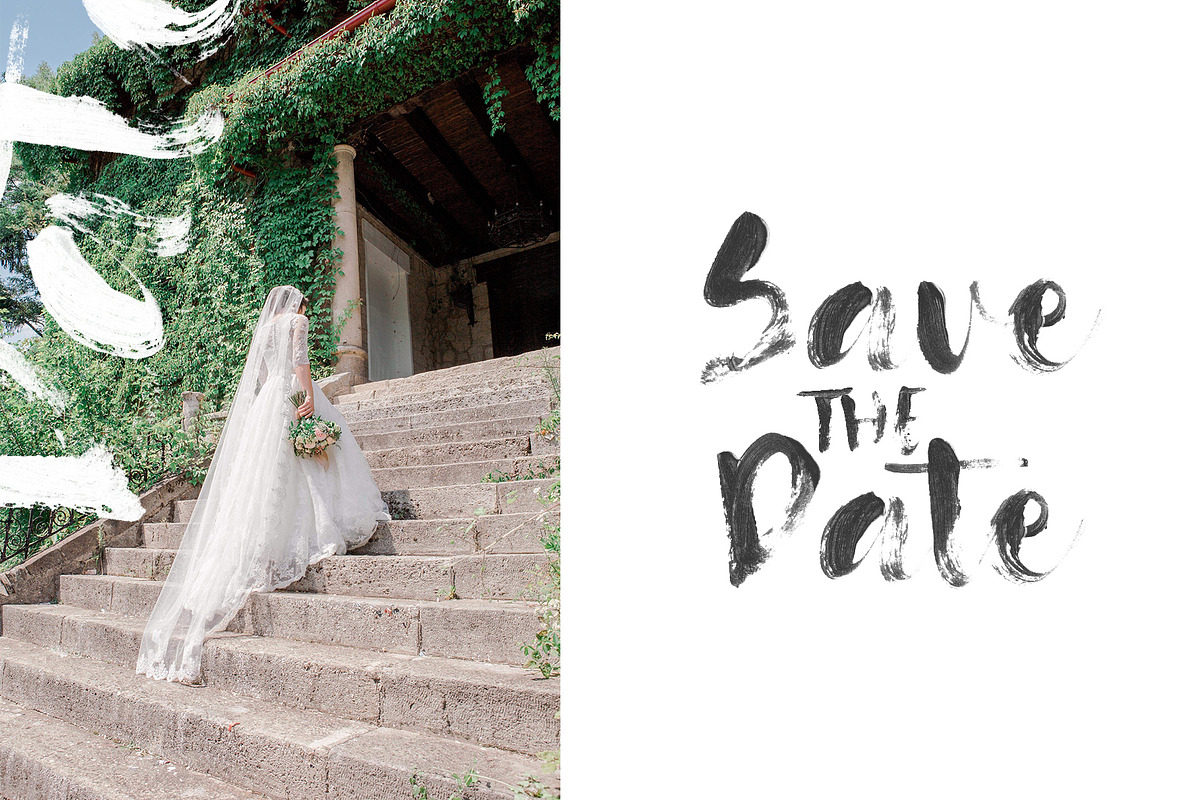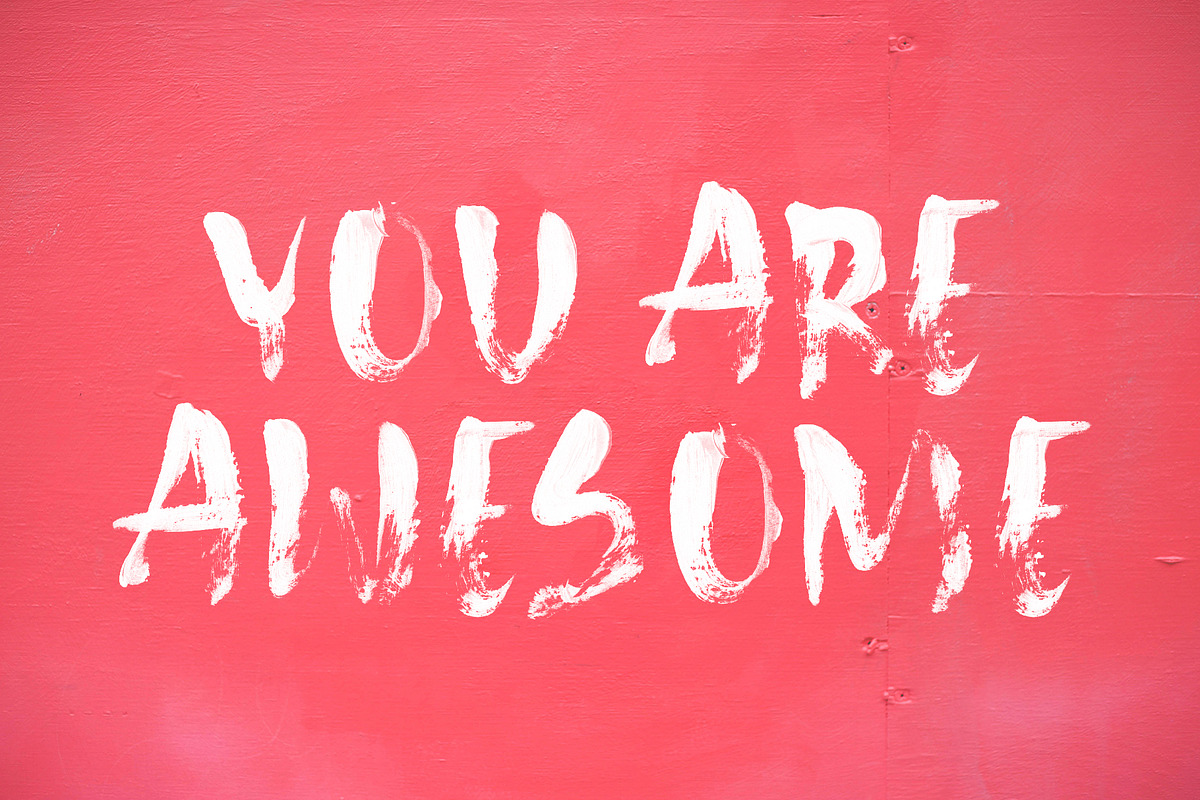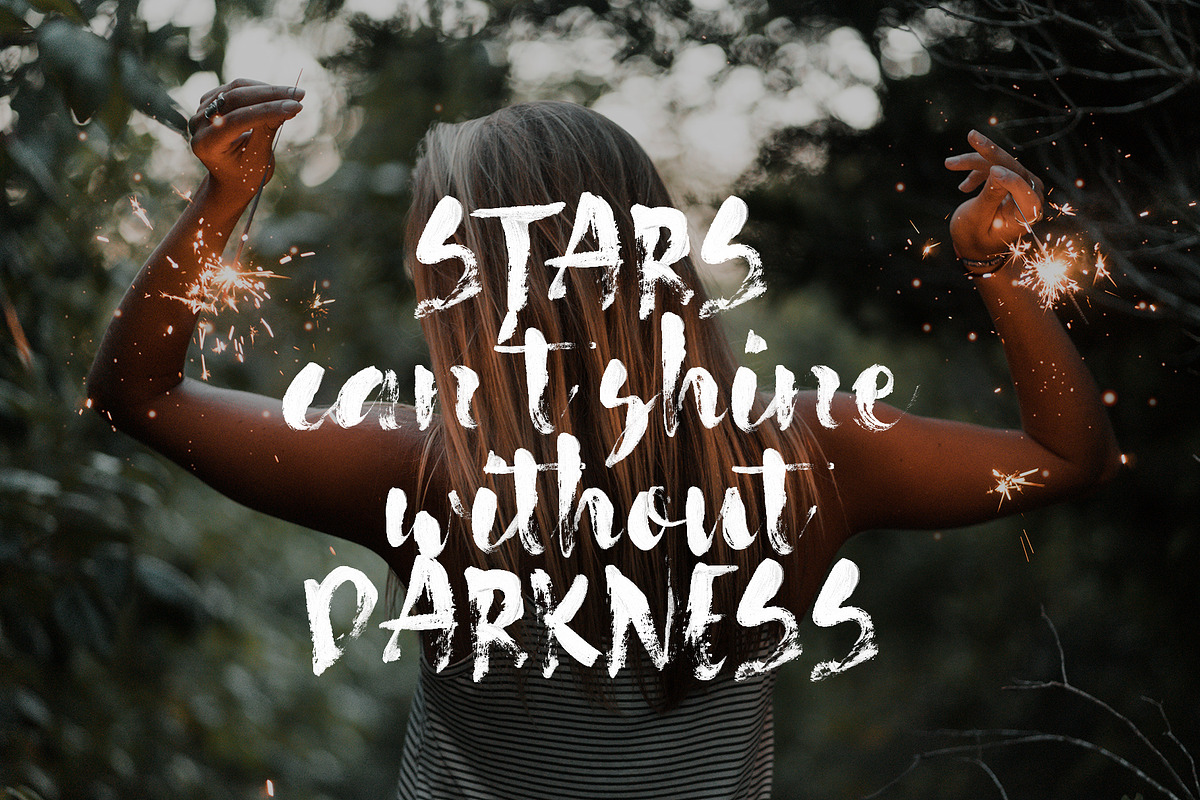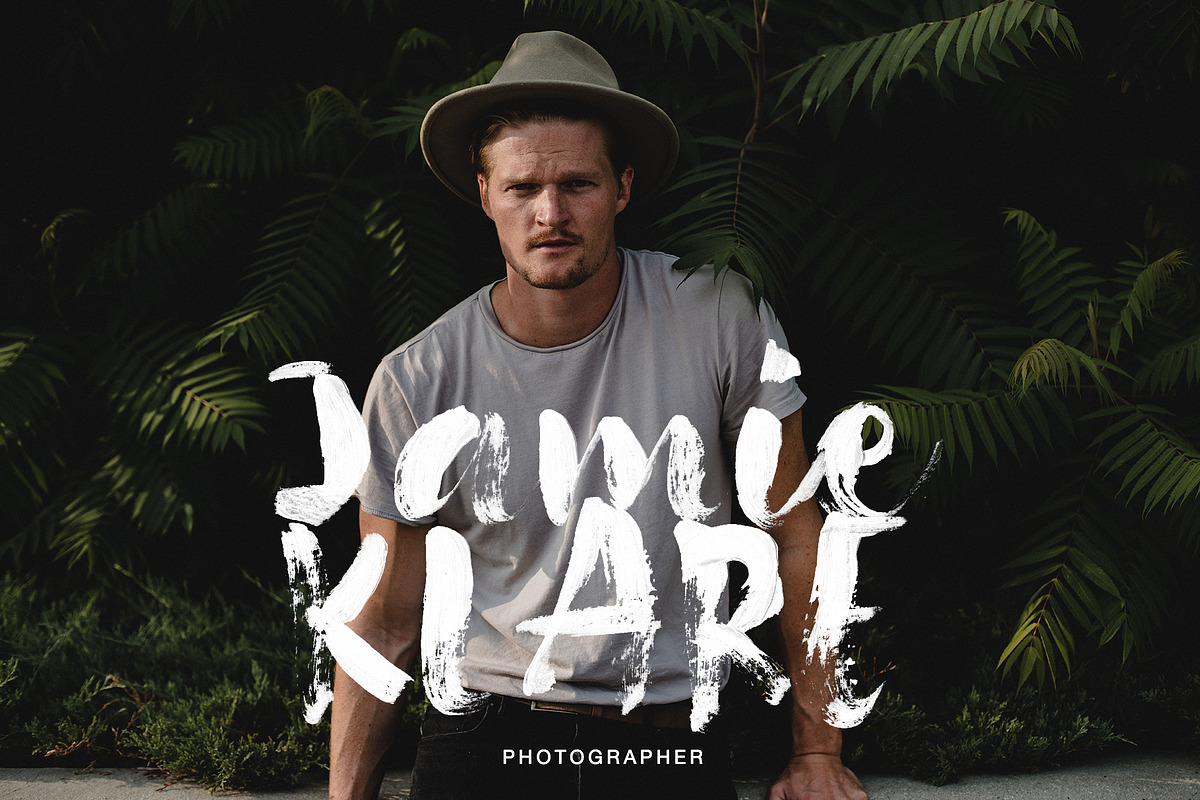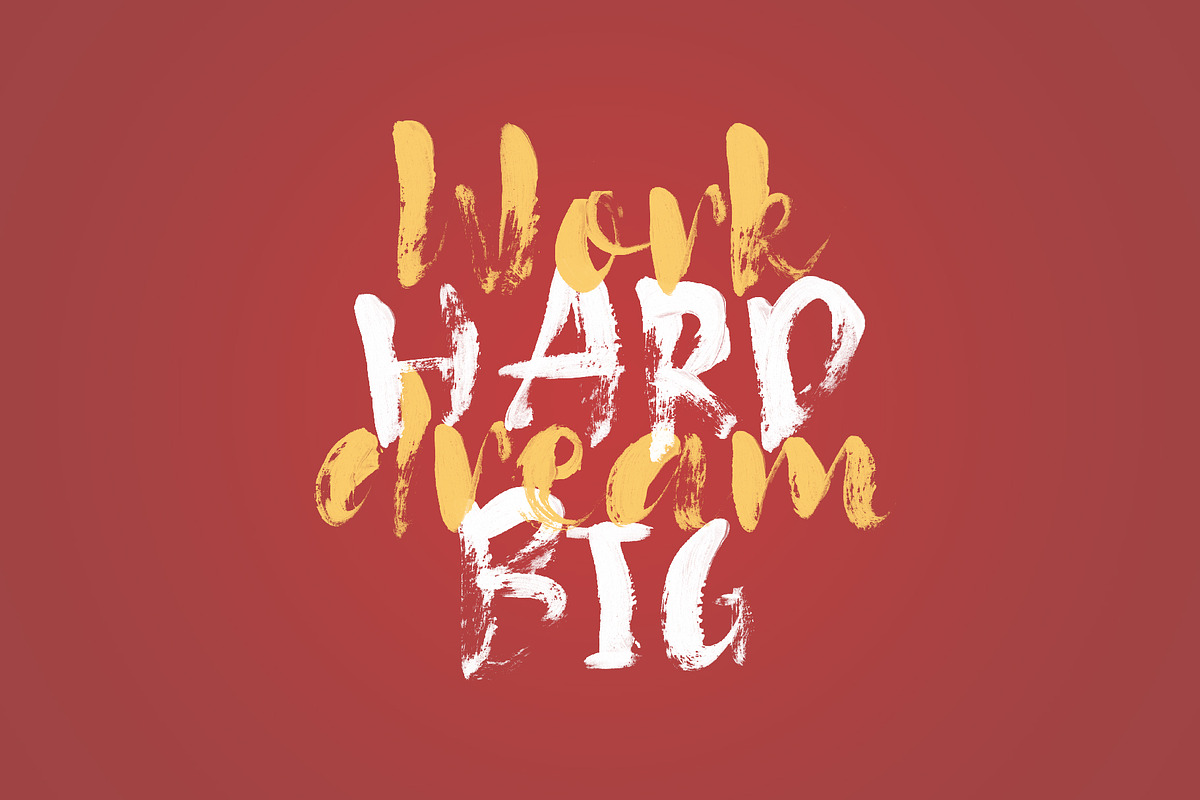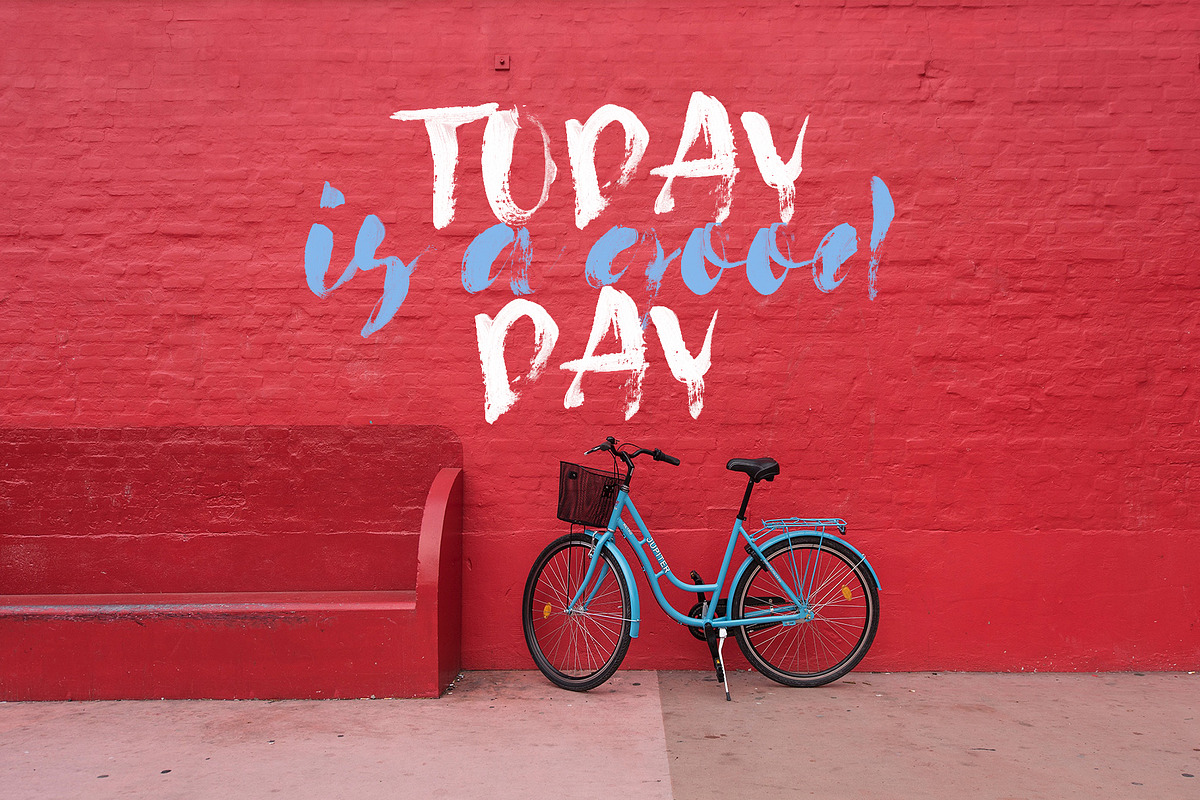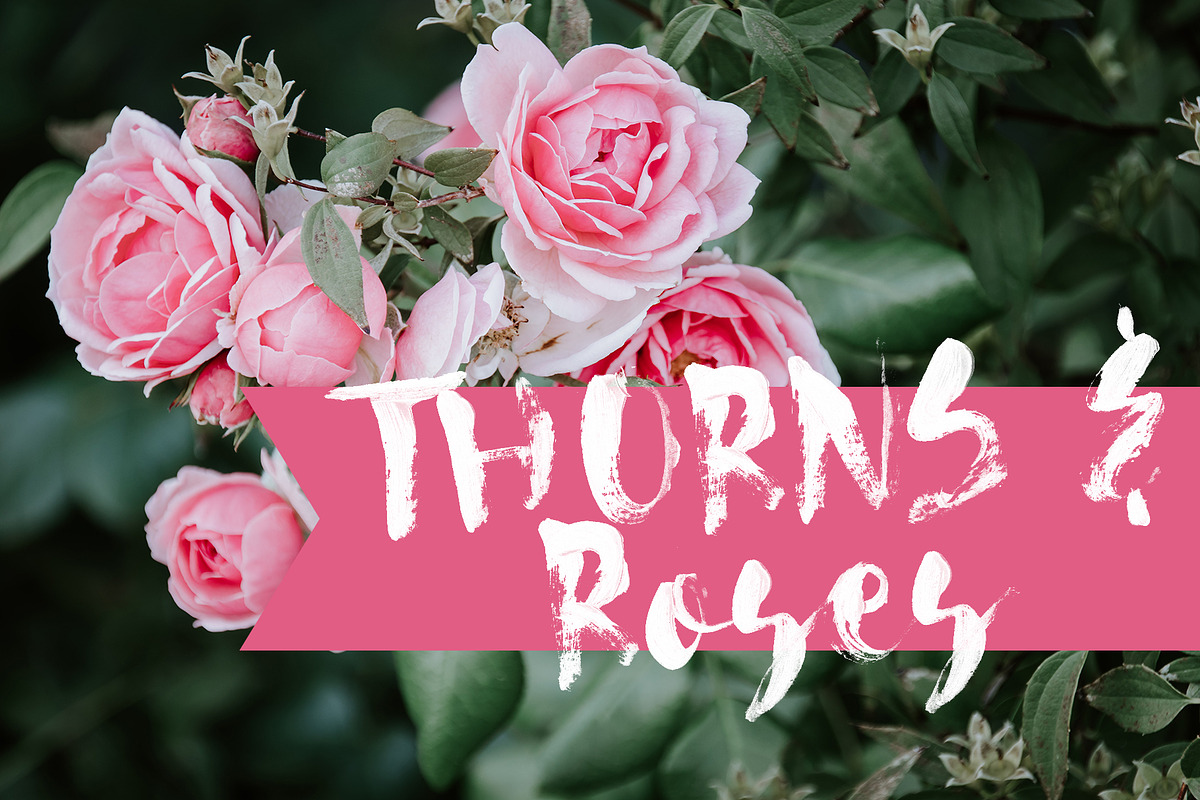
Going Black SVG font
The font was carefully drawn in acrylic and transferred to the digital version to create beautiful typographical designs.
Going Black SVG Font are made by converting hand painted lettering , unchanged, including all its transparency and high resolution detail - into an actual font - as you type your letters out, it looks like you have just hand painted them.